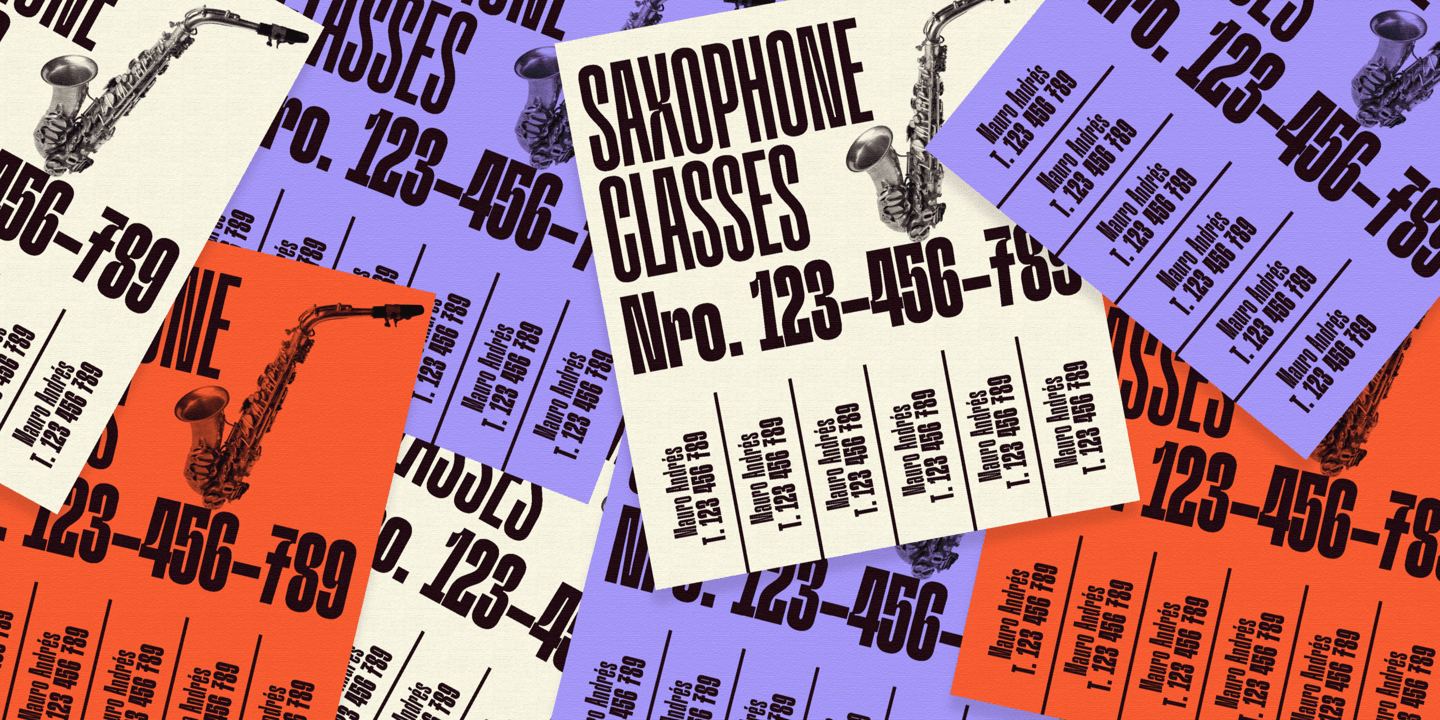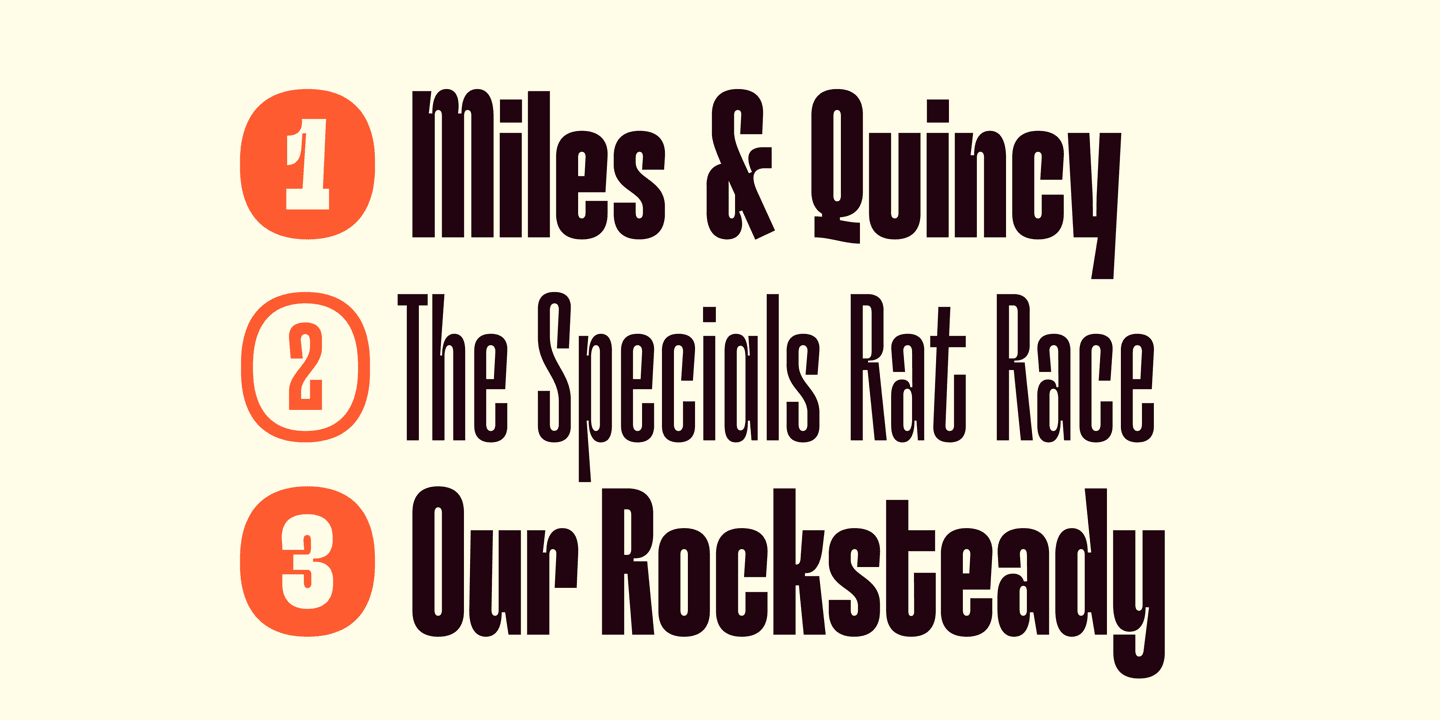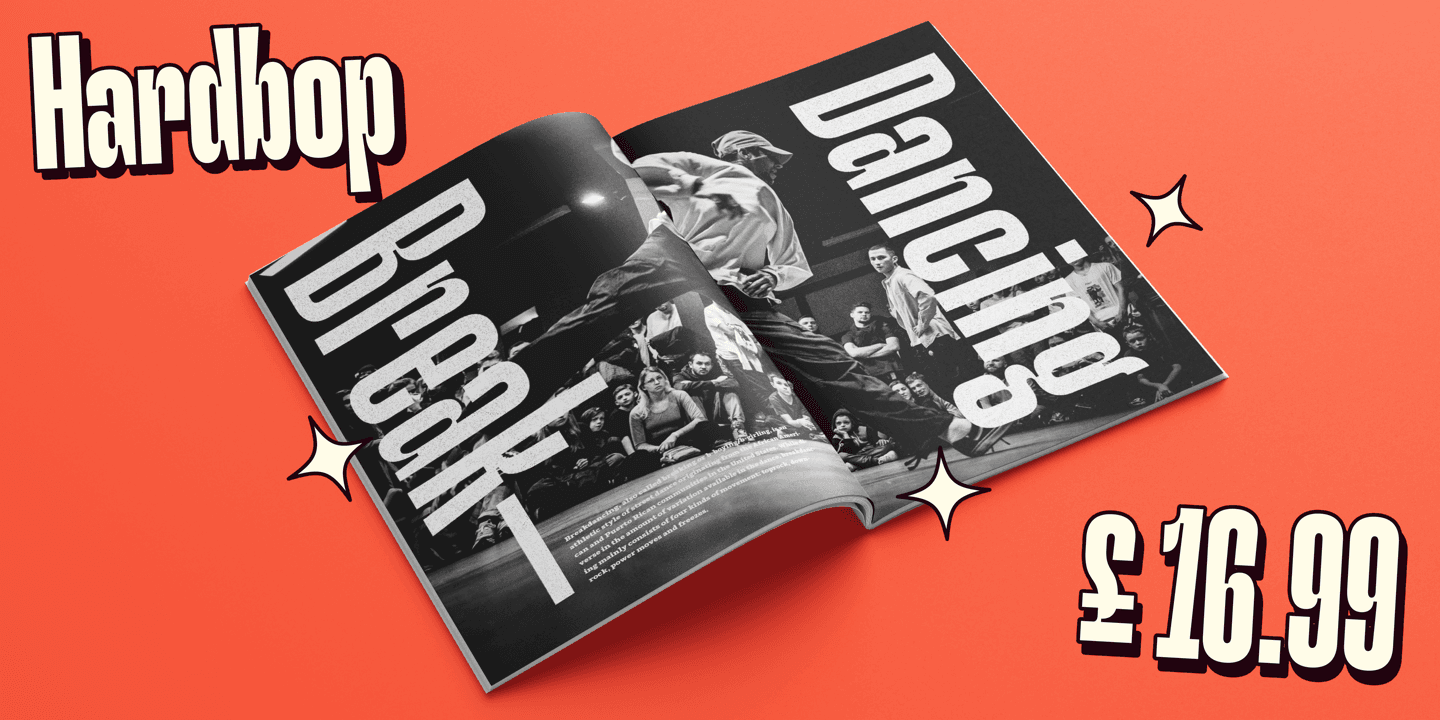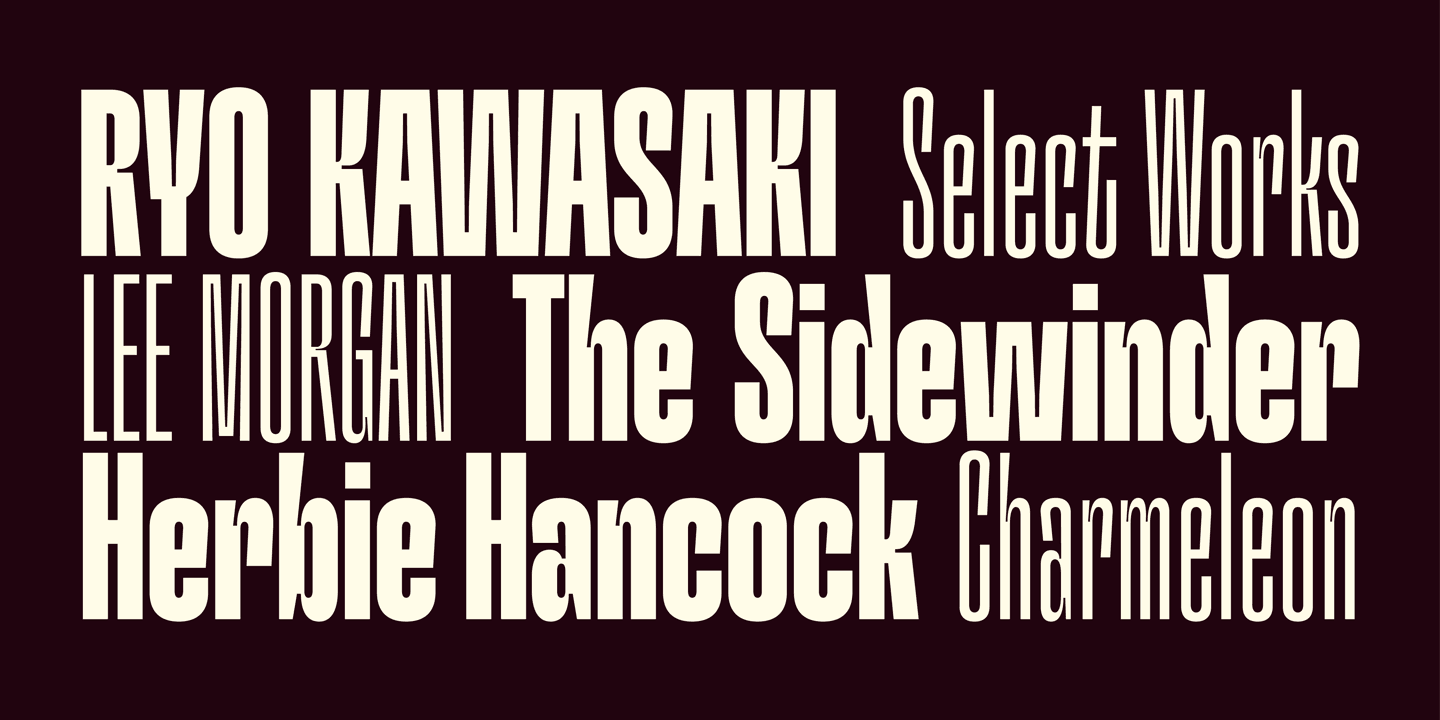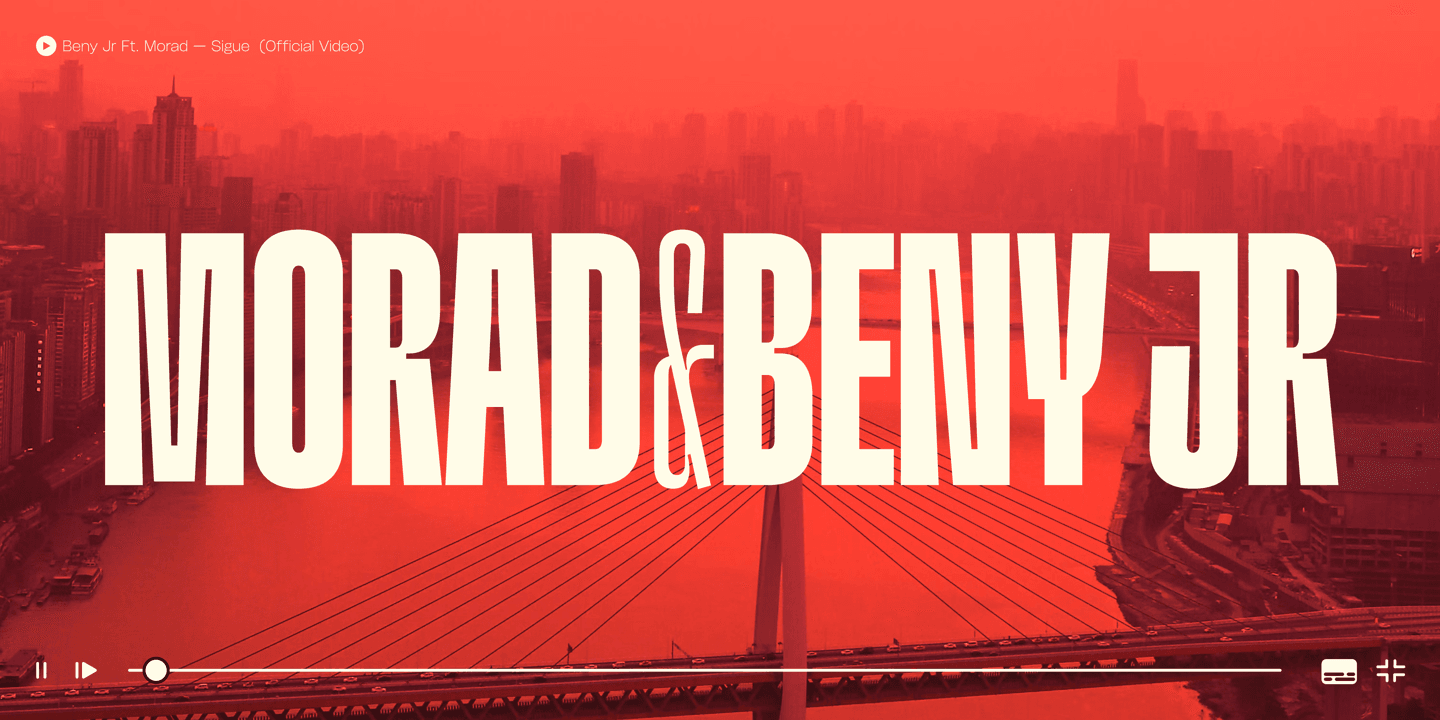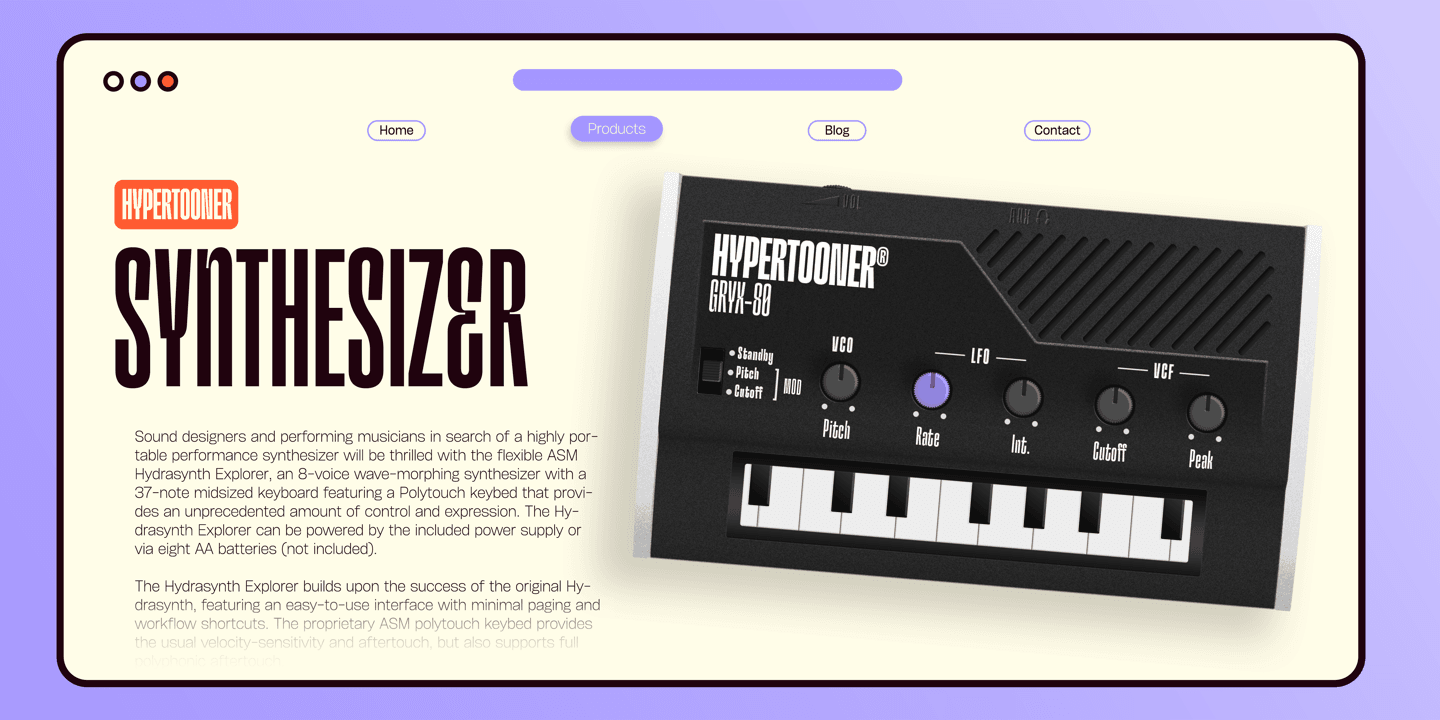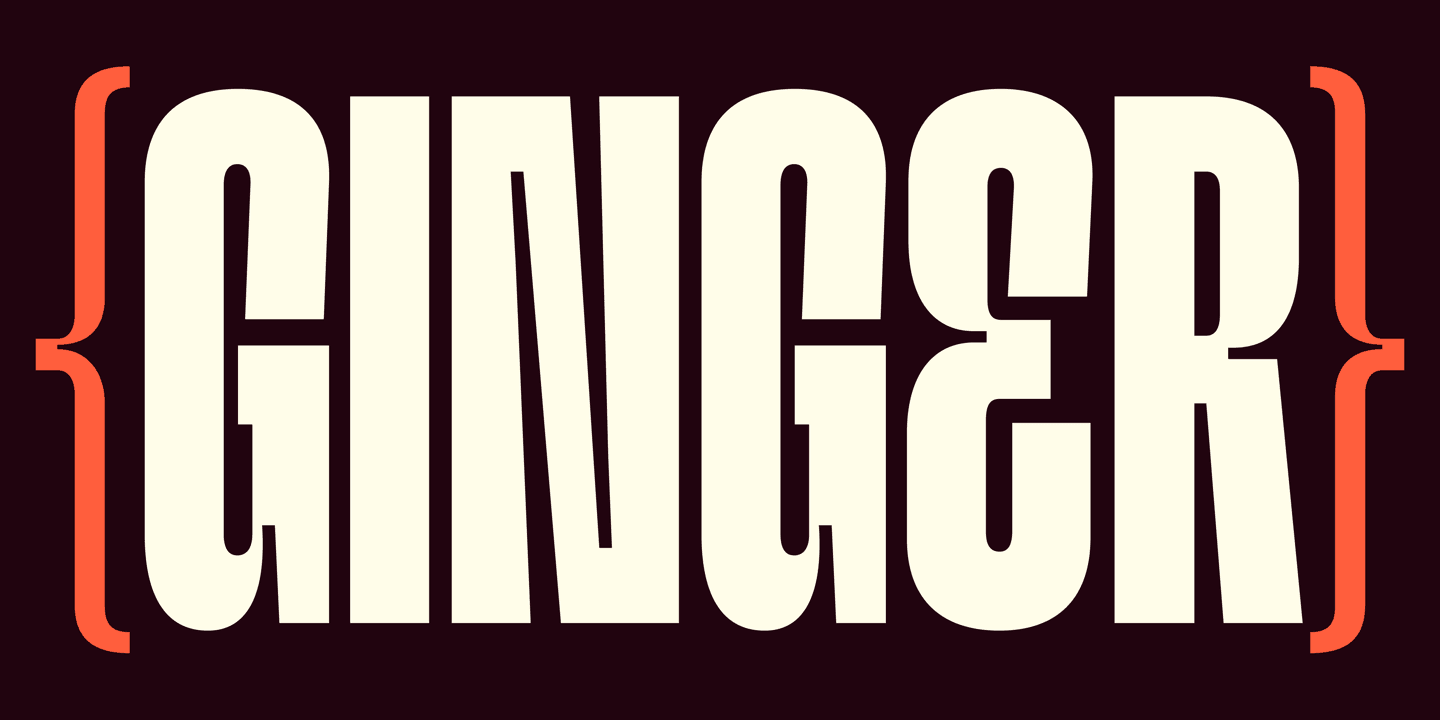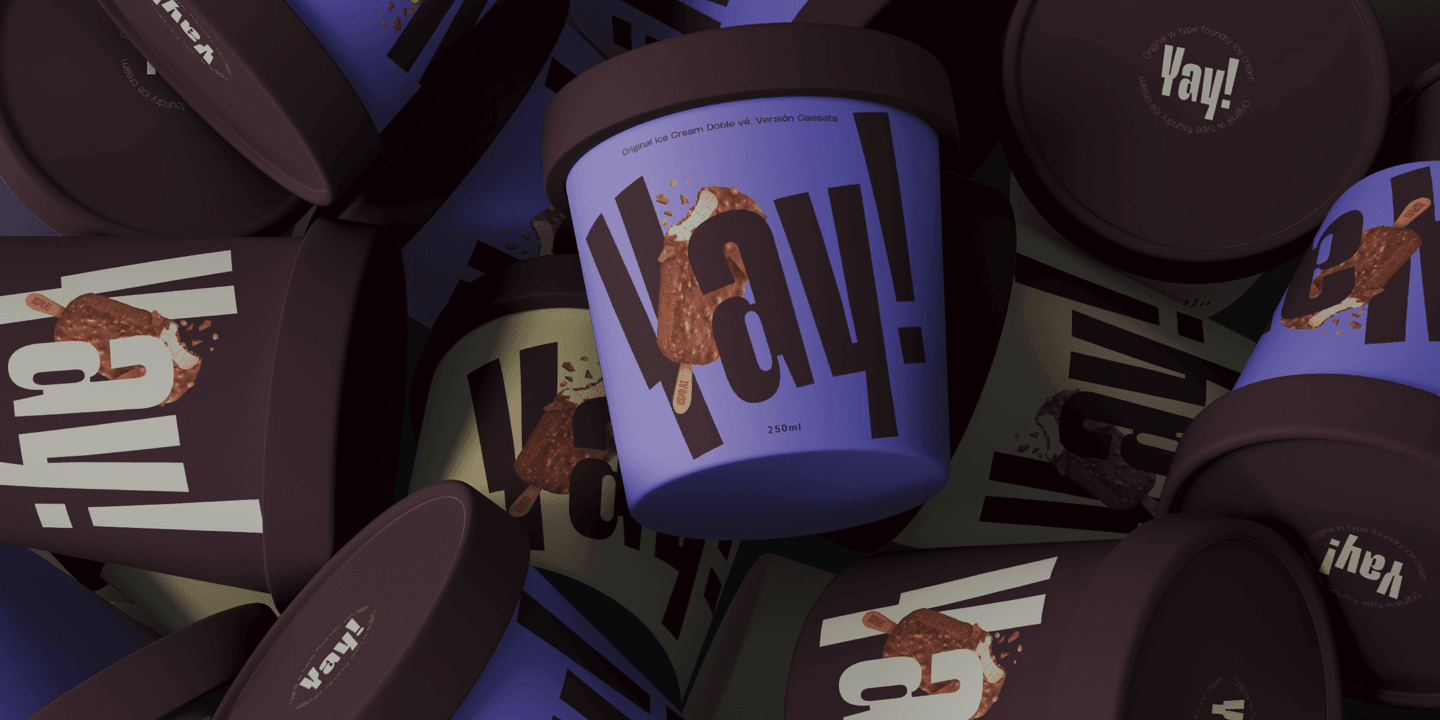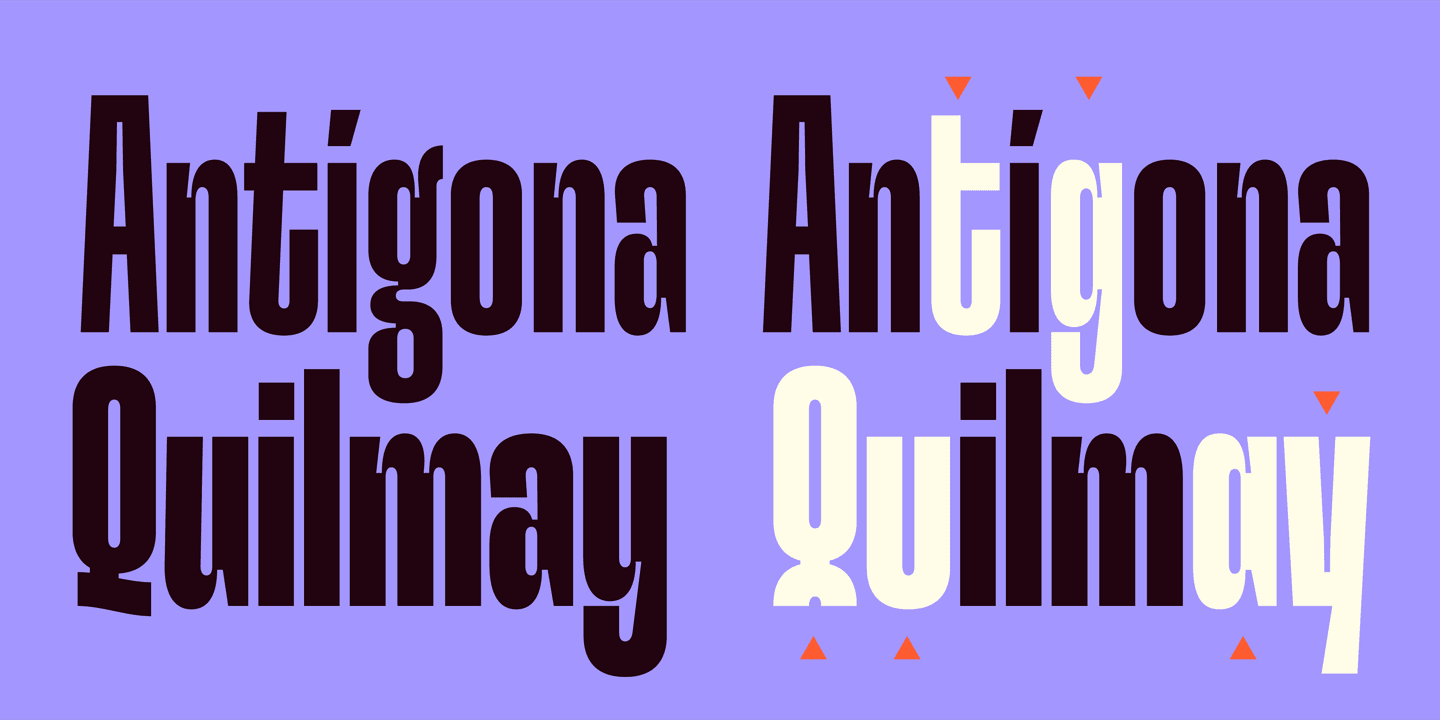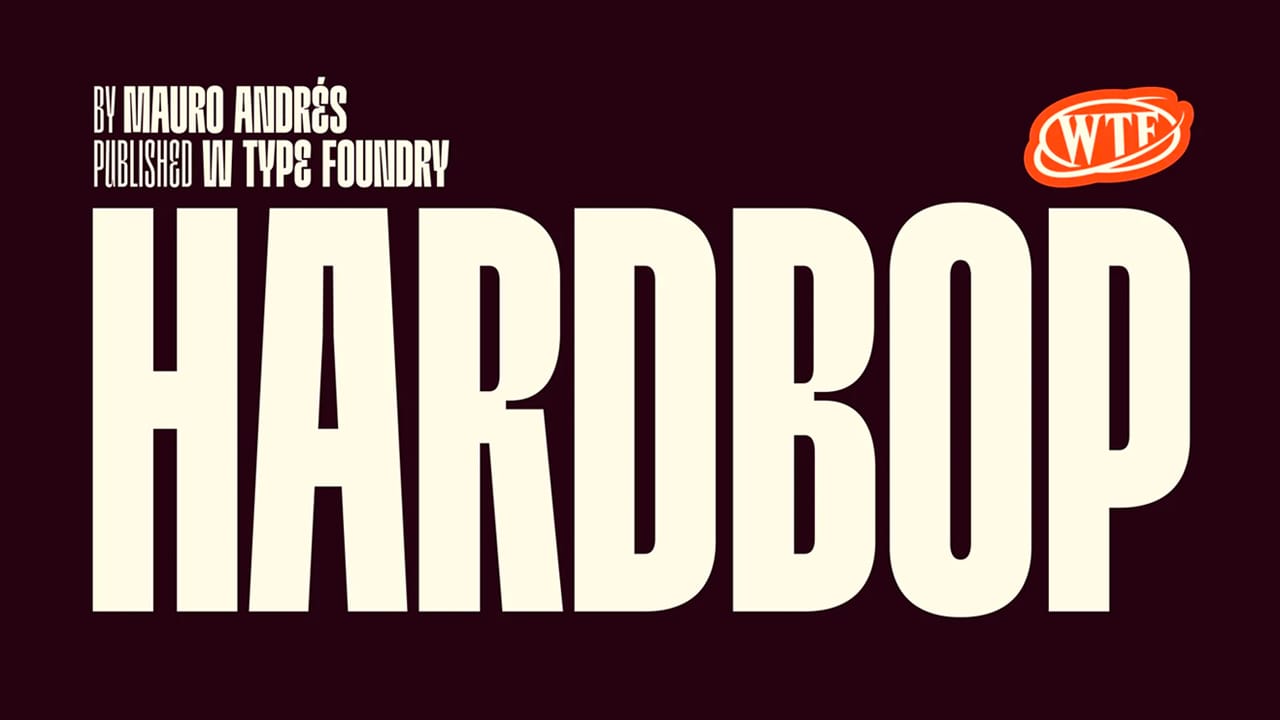
Hardbop Font Family is inspired by jazz music, especially its style is named after “Hardbop”. Hardbop was also inspired by Reid Miles’ great graphic work for the Blue Notes Records cover of the 50s, the cover of the Japanese jazz album of the 70s.
Hardbop is also inspired by classic fonts like Impact, Bebas, Din, Frontage. However, Hardbop brings a new and more modern look with impressively designed lettering. The font includes 8 styles from Thin to Black so you can easily use it for any design.
Hardbop fits great in large titles and spaces and is specially designed for disc covers, music covers, posters or any other design that requires a bold, fresh and stylish font. .